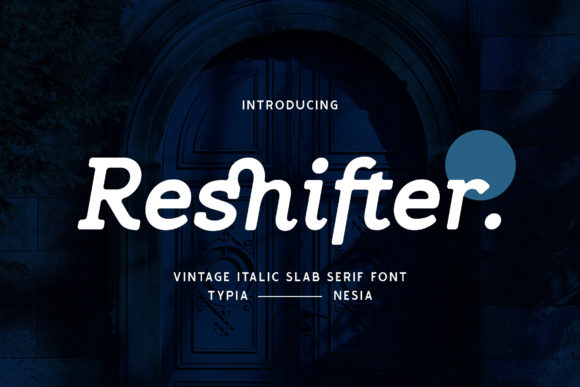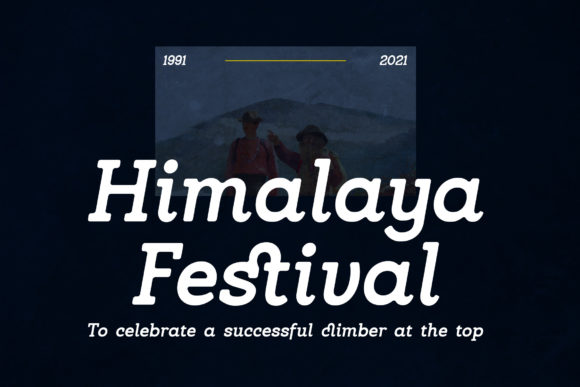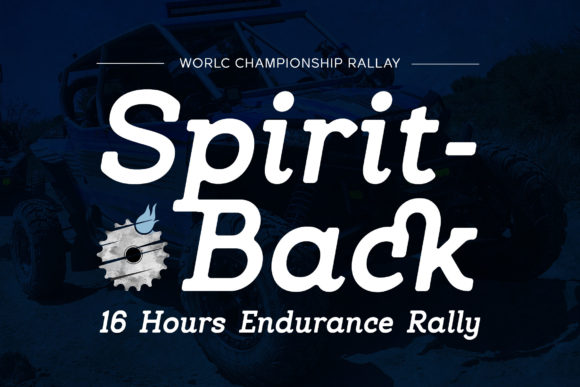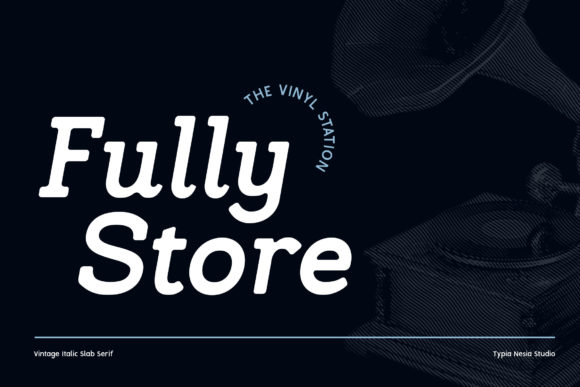
Reshifter Font: Vintage Slab Serif for Unique Logo Design
About the Reshifter Font
Discover the charm of Reshifter Font. This font is a perfect blend of modern aesthetics and classic appeal. Reshifter is a cool and vintage styled slab serif font. No matter the topic, this font will be an incredible asset to your fonts’ library, as it has the potential to elevate any creation.
Reshifter excels in display applications such as headlines, posters, and logos where its bold, vintage slab serif character makes a strong visual statement. It’s ideal for projects needing a retro or slightly rebellious feel, particularly brands targeting a younger demographic or those with a strong vintage aesthetic. Avoid using it for body text or lengthy paragraphs; its strong forms are not suited to extended reading.
Pairing Reshifter with a clean sans-serif like Open Sans or a more modern geometric font like Montserrat creates a balanced and contemporary contrast. For a warmer, more traditional feel, consider pairing it with a classic serif like Garamond or a slightly playful script like Allura. The key is to select a contrasting font that complements, rather than competes with, Reshifter’s strong personality.
Its core personality is bold and assertive yet retains a playful vintage charm, making it a versatile choice for projects requiring a balance of energy and nostalgia.
Reshifter Font Usage Examples
Reshifter Font Example